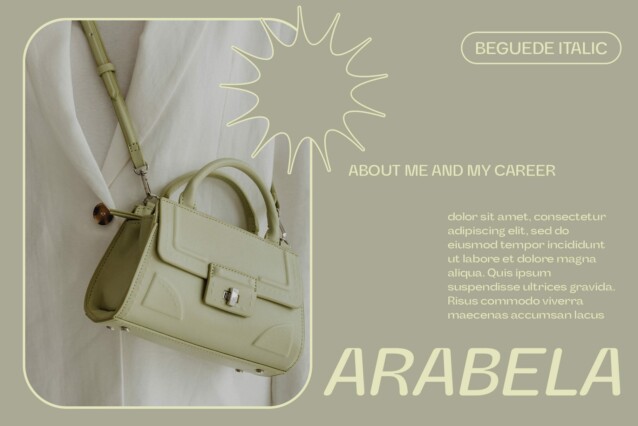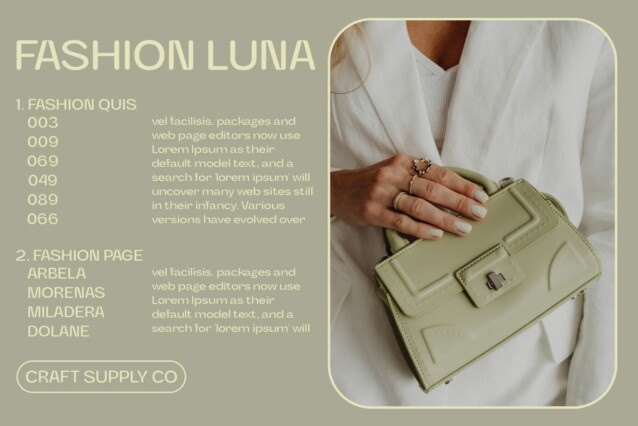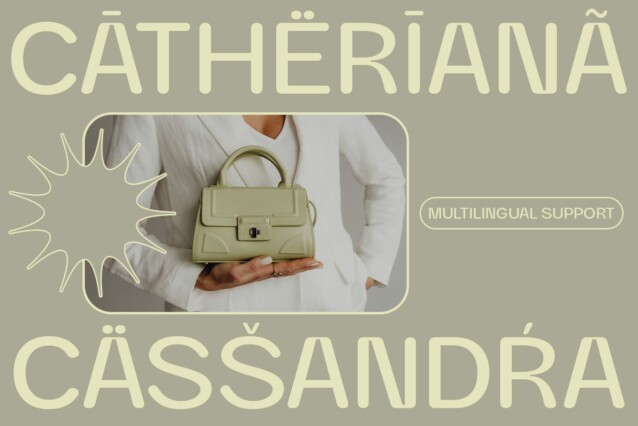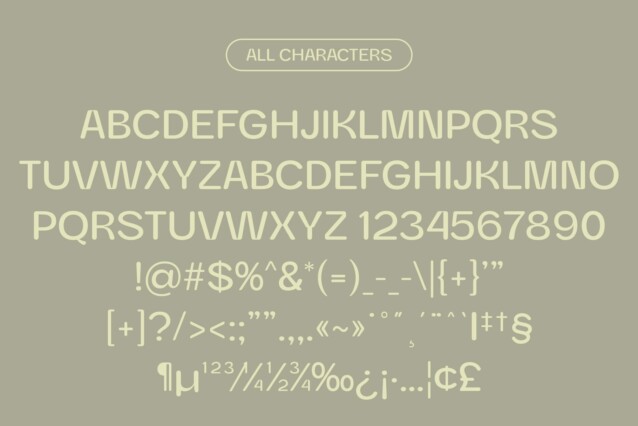
Baguede Rounded Font
Baguede Rounded Font: Embracing Modern Simplicity. A Contemporary Sans Serif Baguede Rounded presents a sleek and contemporary sans serif style, embodying simplicity and elegance in its design.
Low Contrast, High Impact With its low-contrast strokes, This font delivers a subtle yet impactful visual presence, making it suitable for a wide range of design applications.